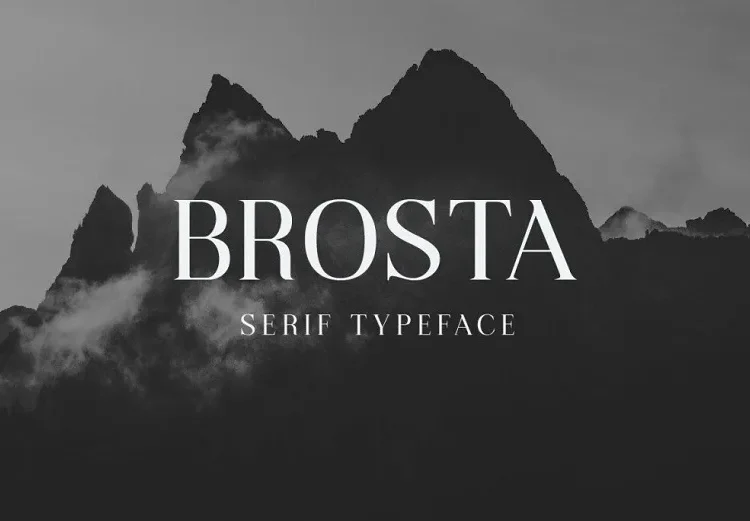
Brosta Font
Brosta is a modern serif font designed by YUKITA CREATIVE, featuring bold letters that are both larger and simple, providing a powerful yet straightforward appearance. This design choice ensures that text stands out with a striking presence.
Brosta is versatile and suitable for a variety of design needs, including elegant wedding invitations, stunning stationery art, eye-catching social media graphics, and more. Its clean and impactful style enhances any project with a touch of sophistication and clarity.